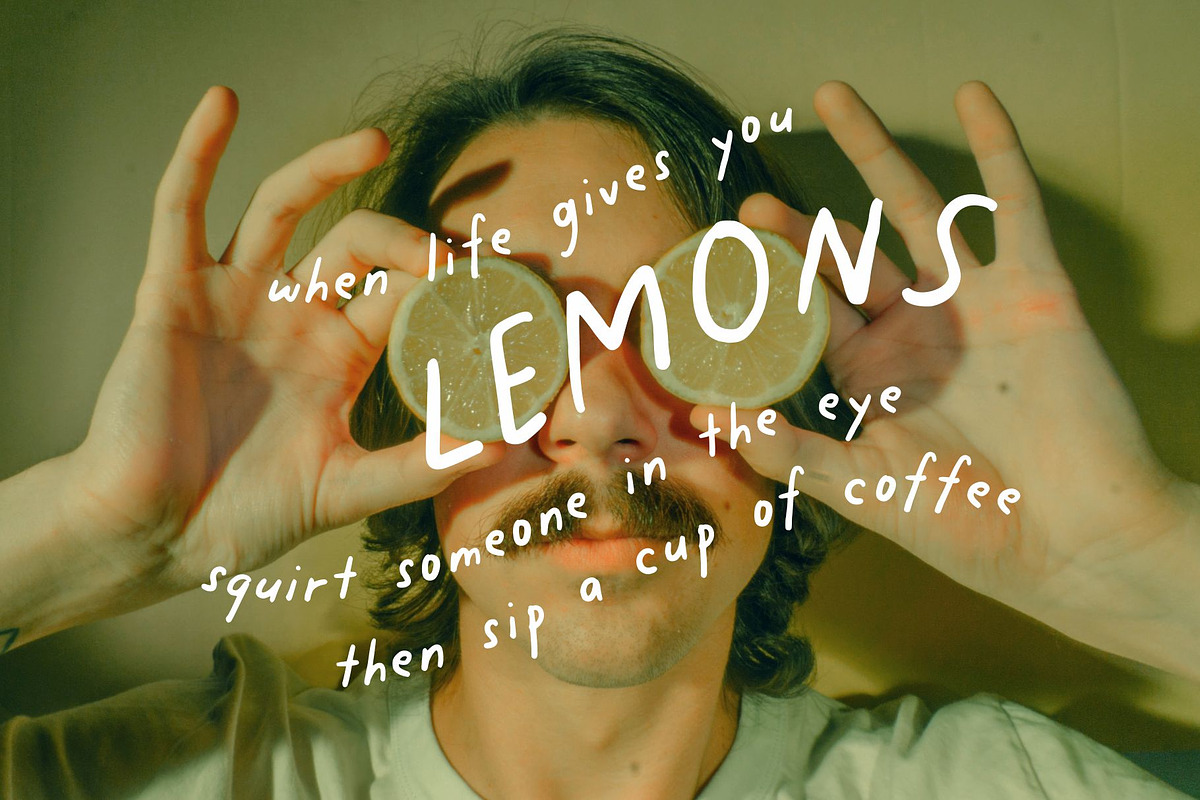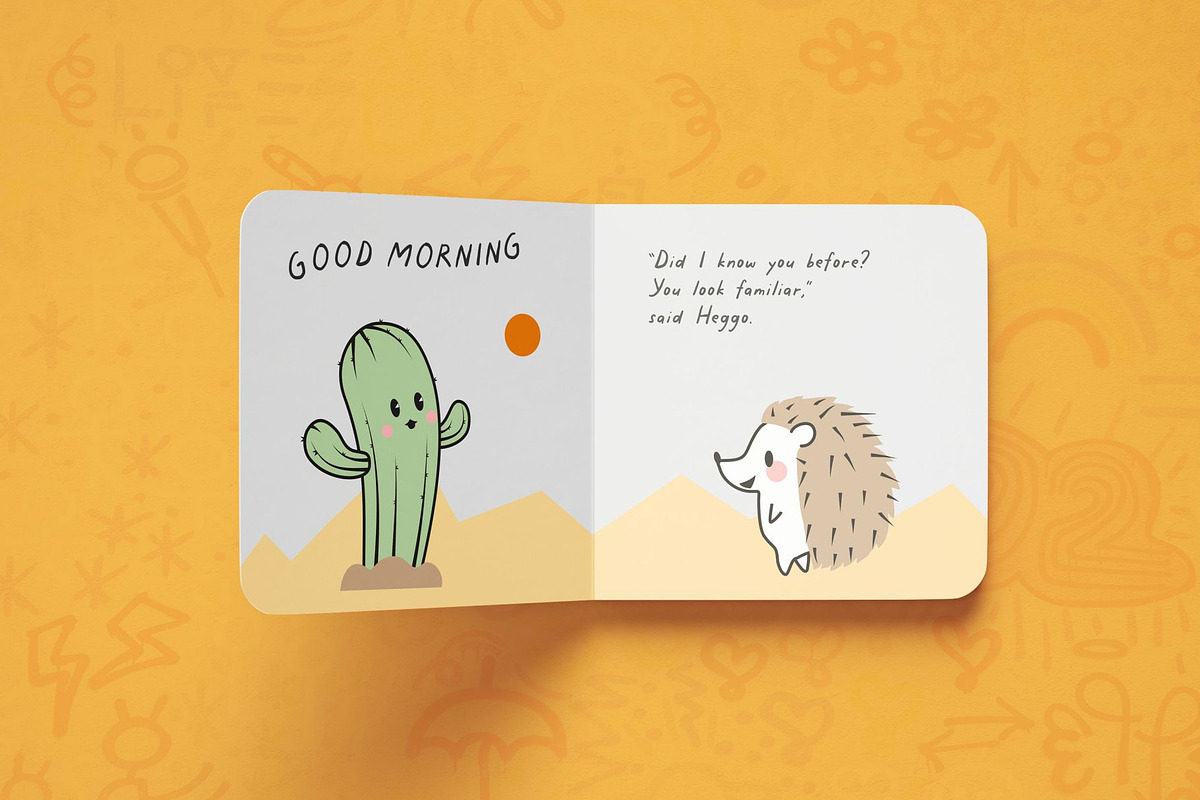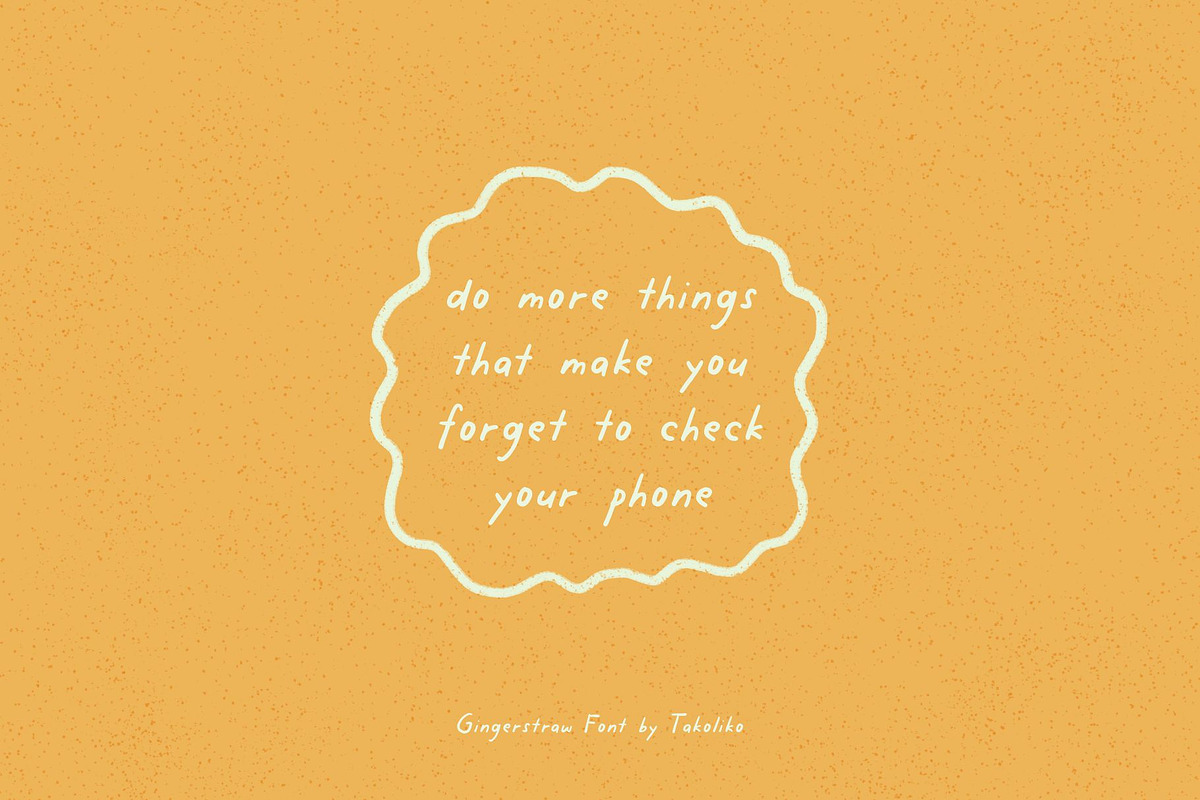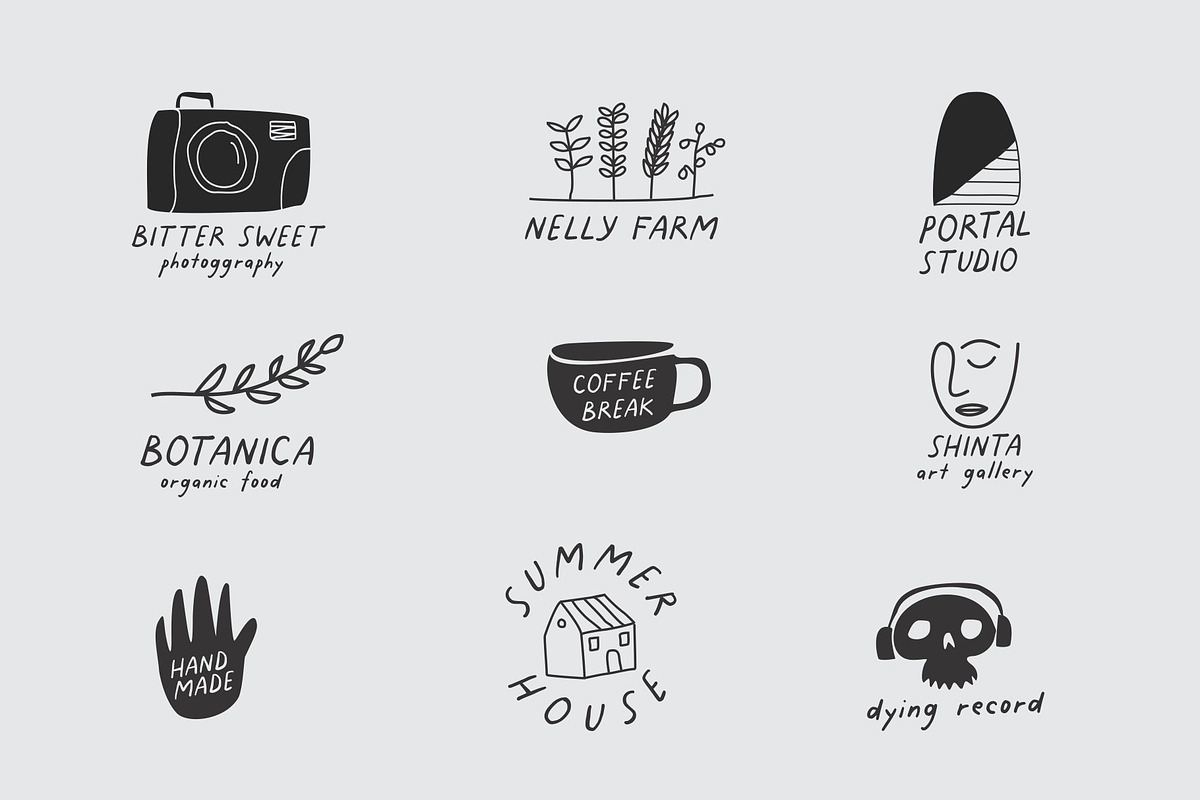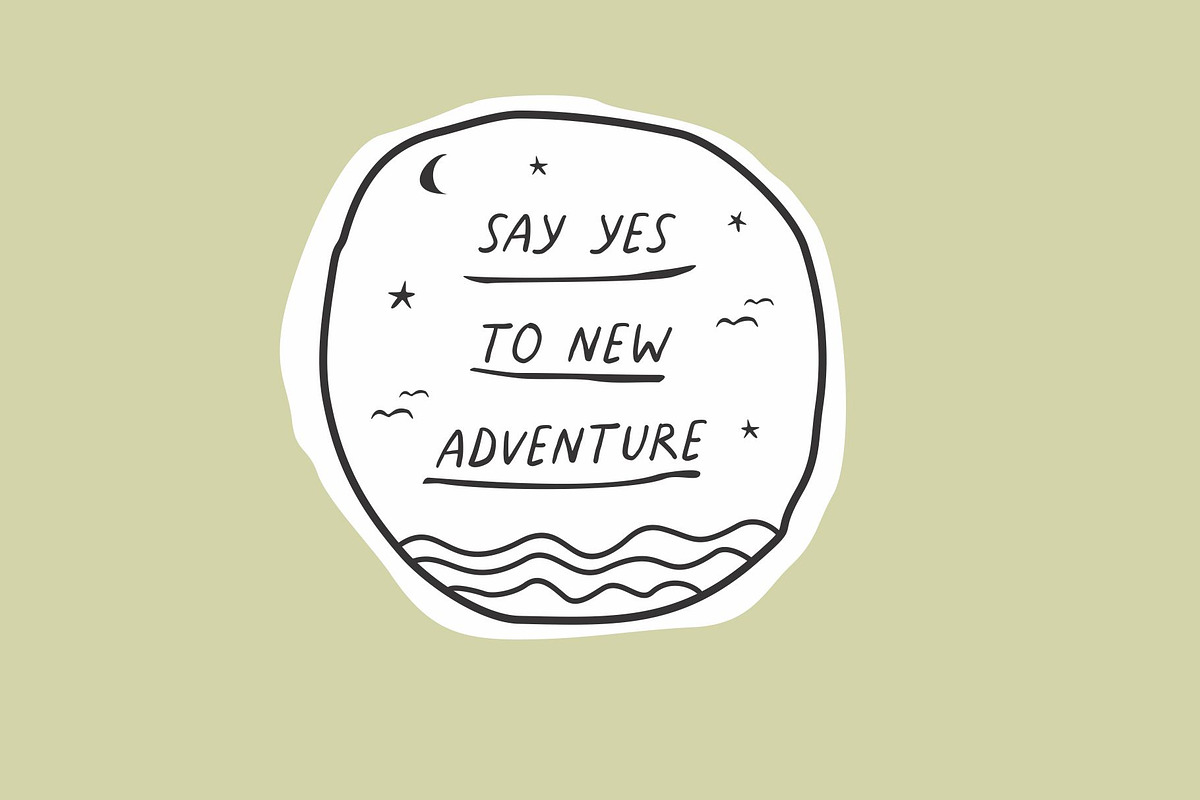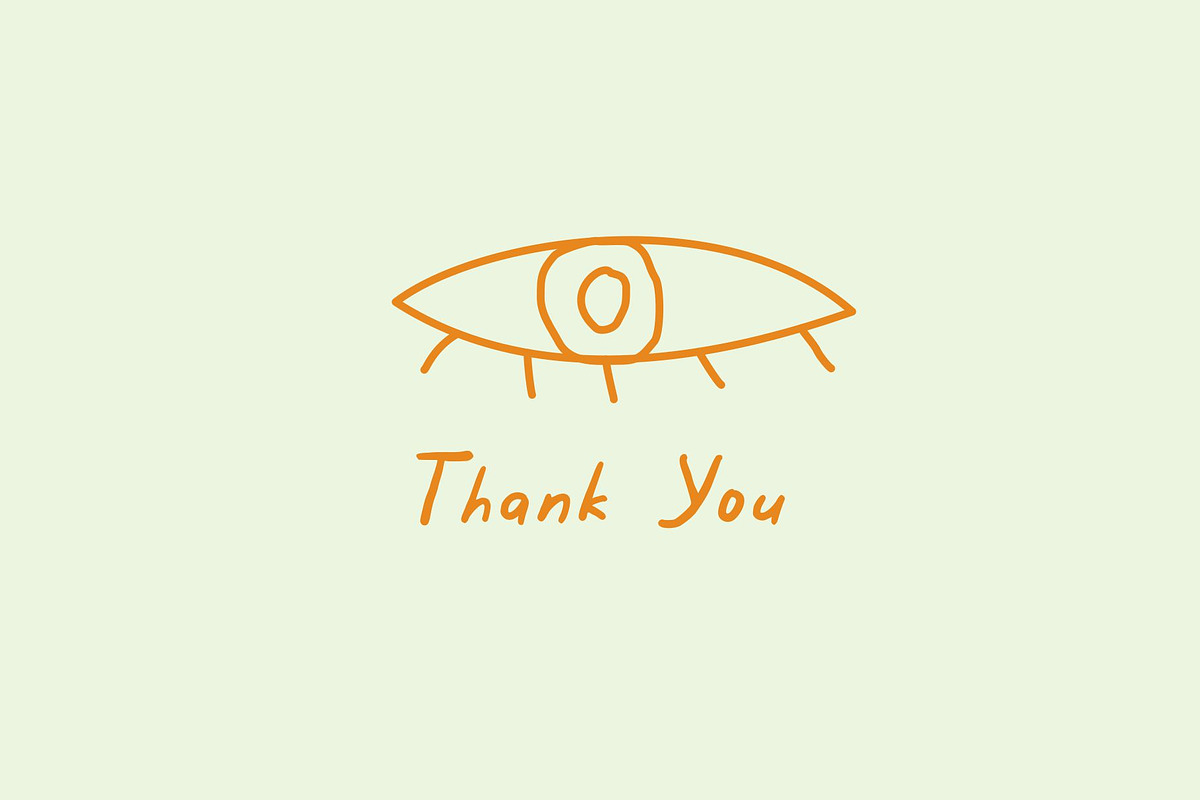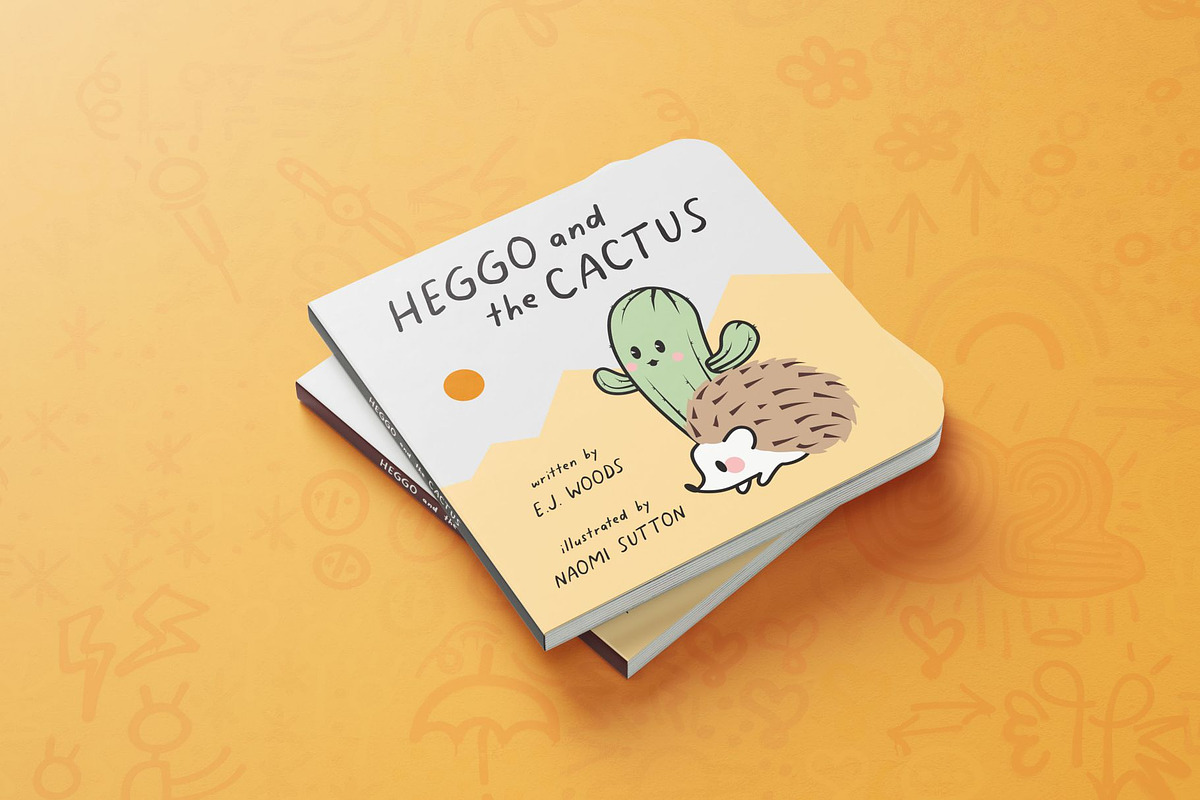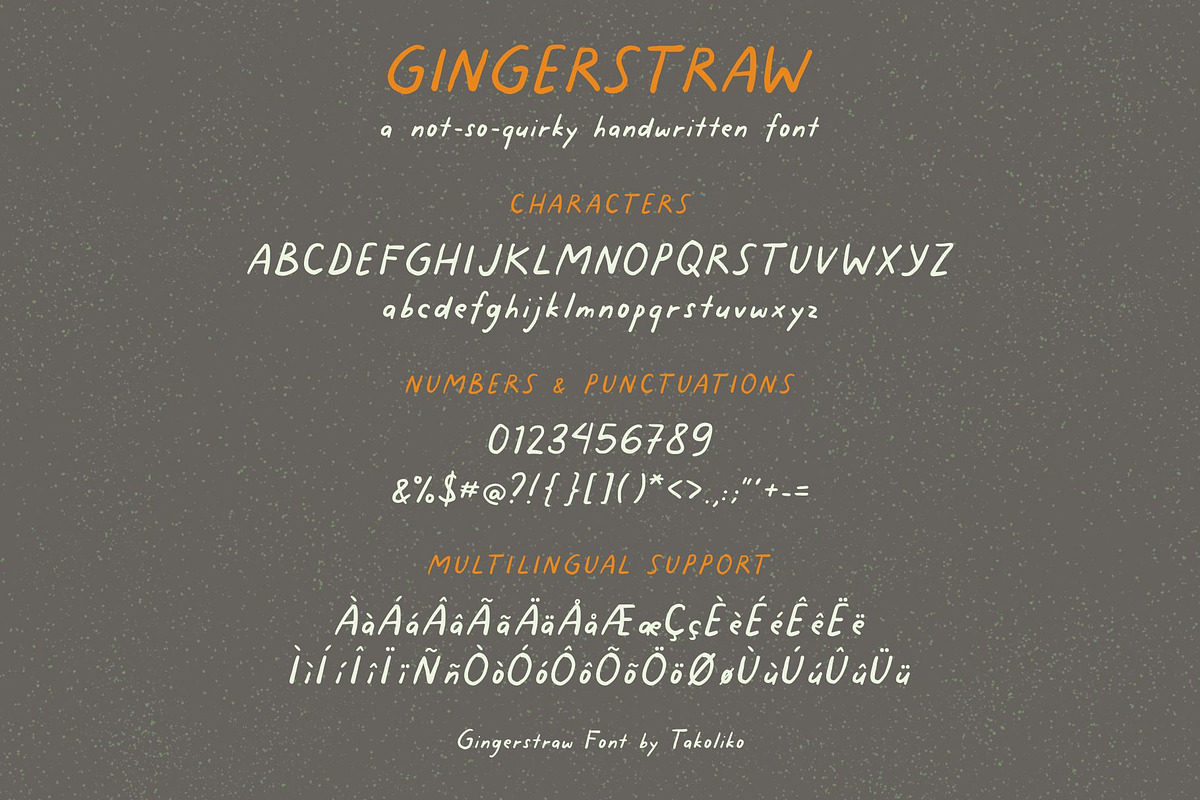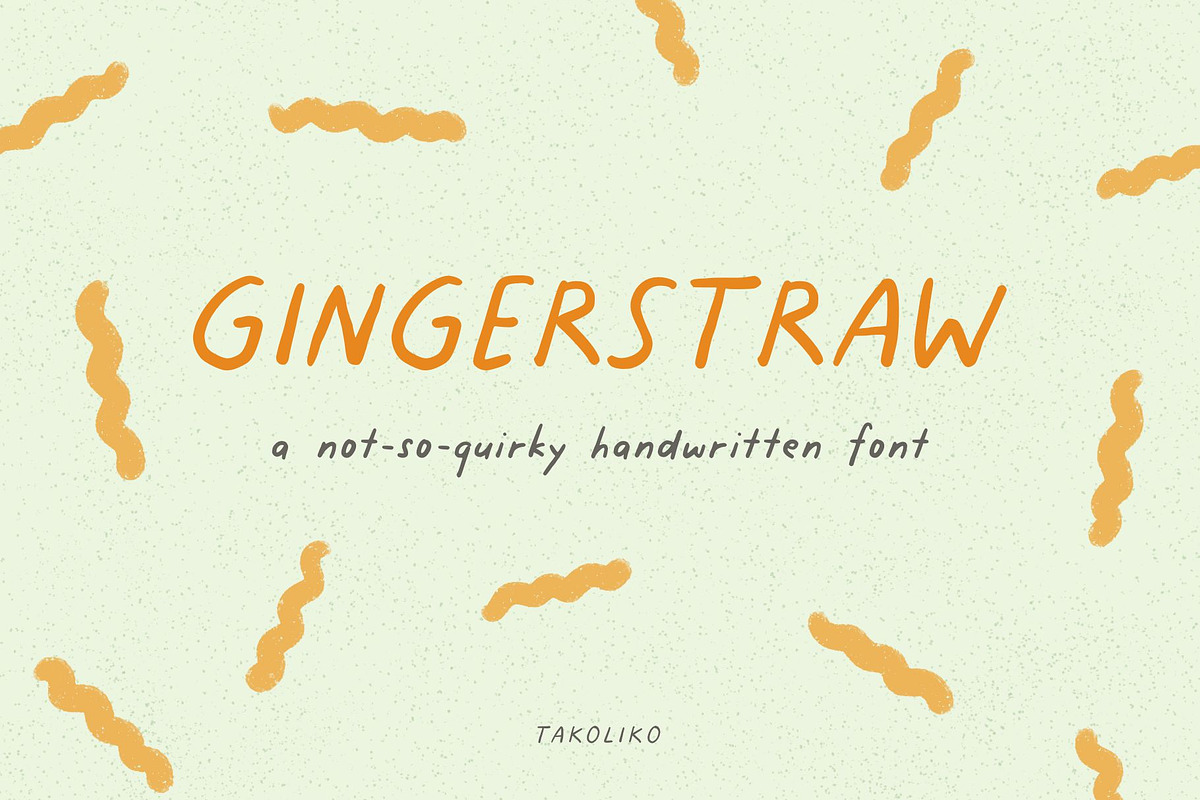
Gingerstraw
Gingerstraw a not-so-quirky handwritten font. It has a raw, handmade, warm, cheerful atmosphere, and gives a little bit quirky dorky vibes. Inspired by the soul of happiness, cheerfulness, and passion. Gingerstraw can easily be matched to an incredibly large set of projects and is good for communicating your brands, especially if you want to make a raw, artsy, handmade, and add a personal touch. So spice up your design and enjoy the font.